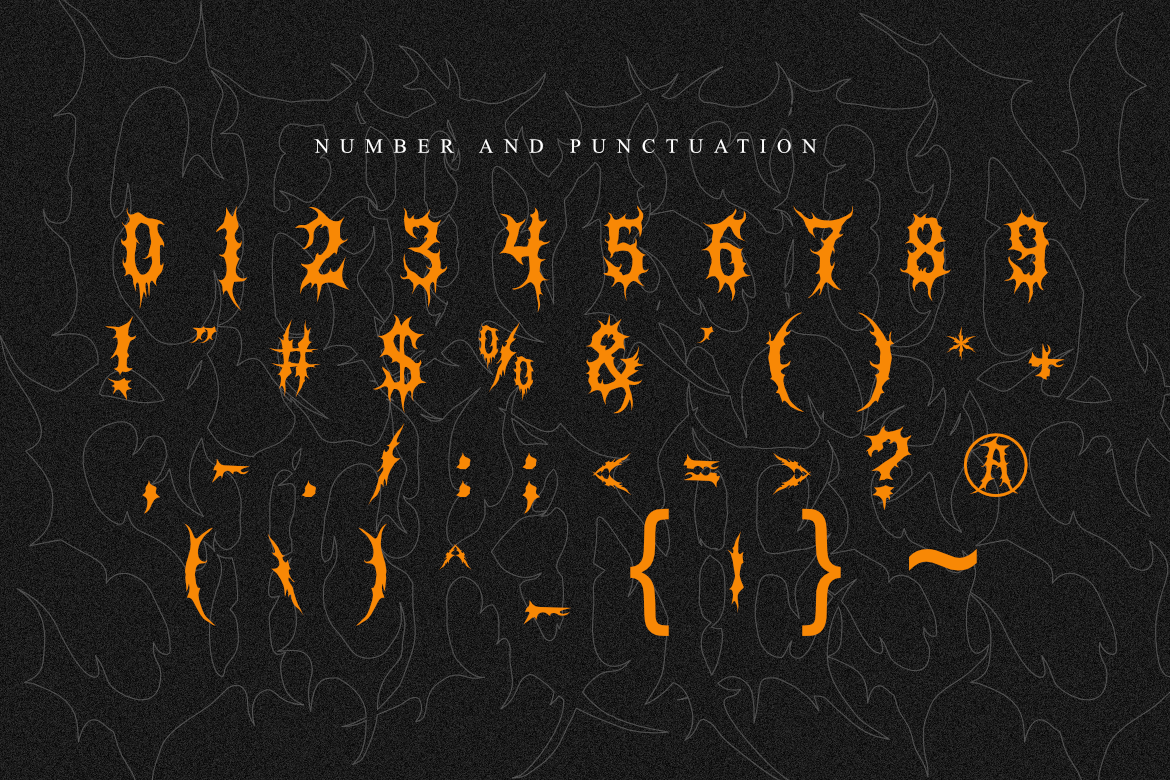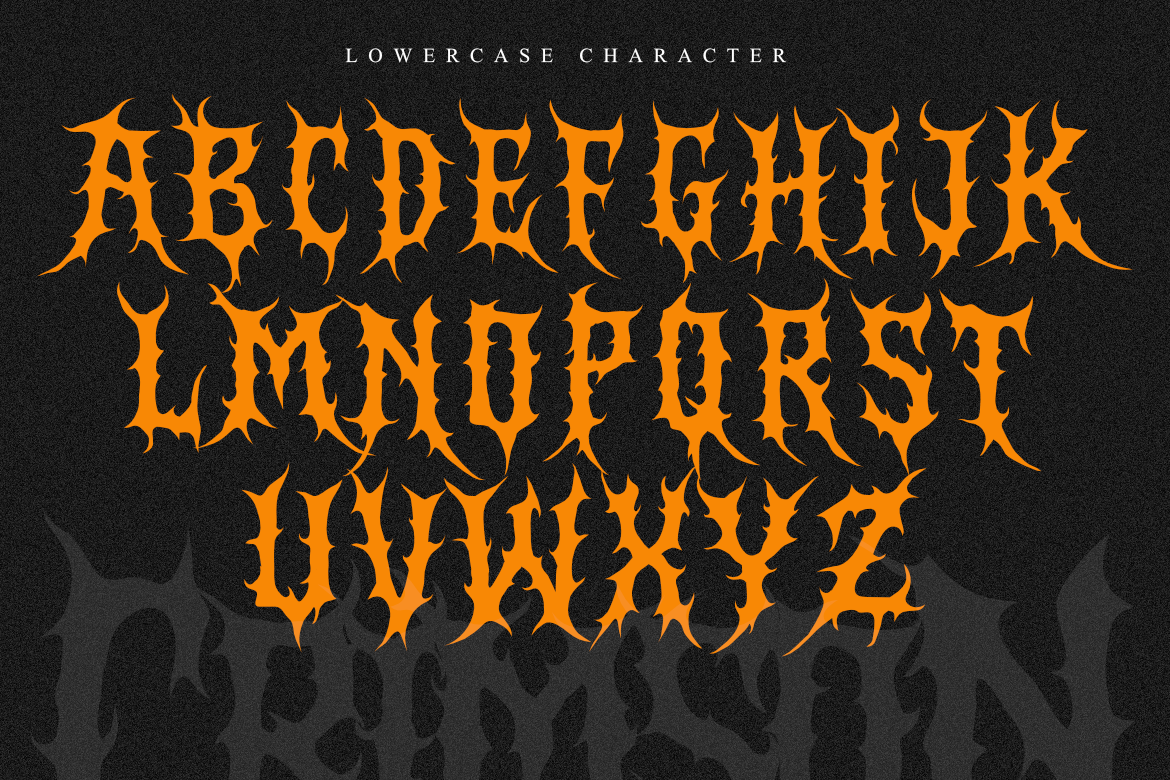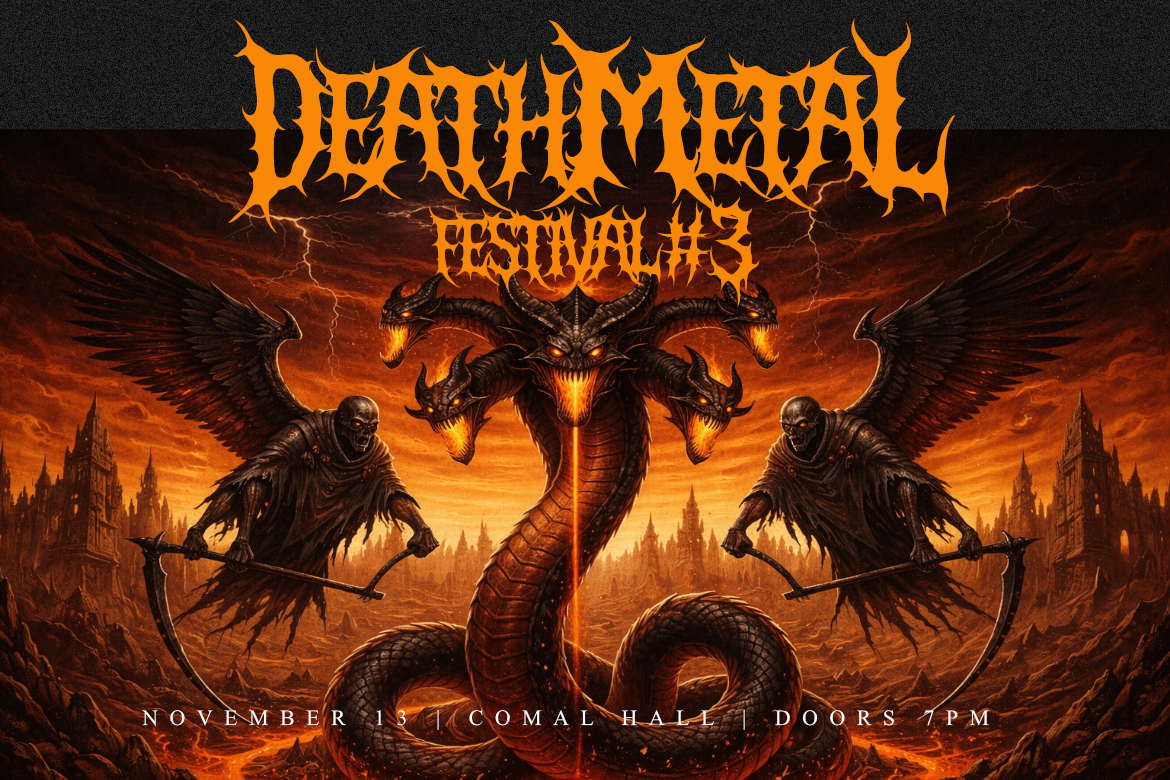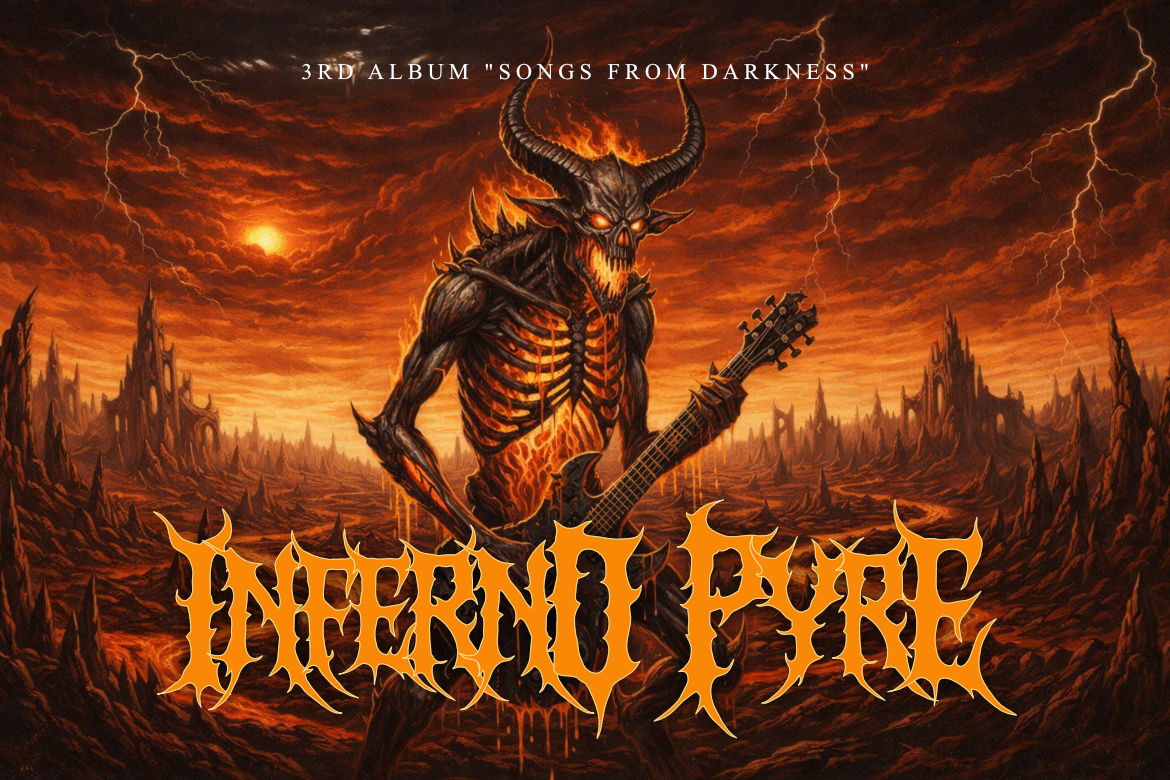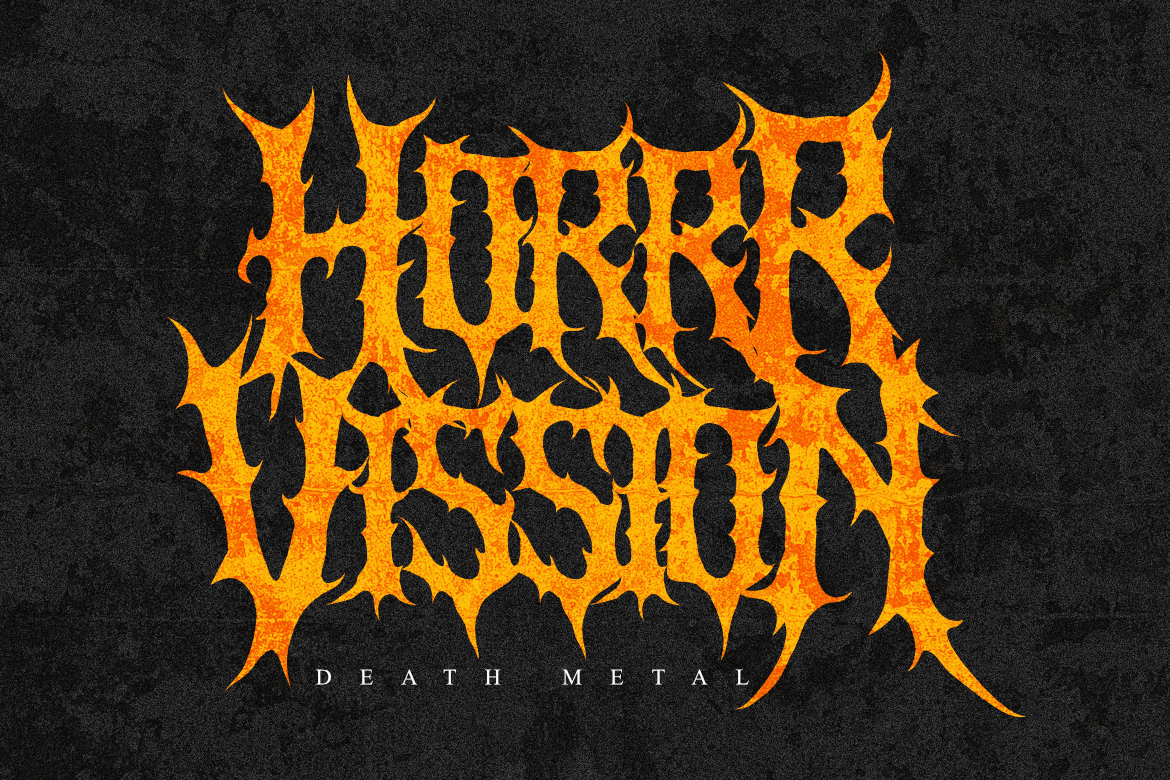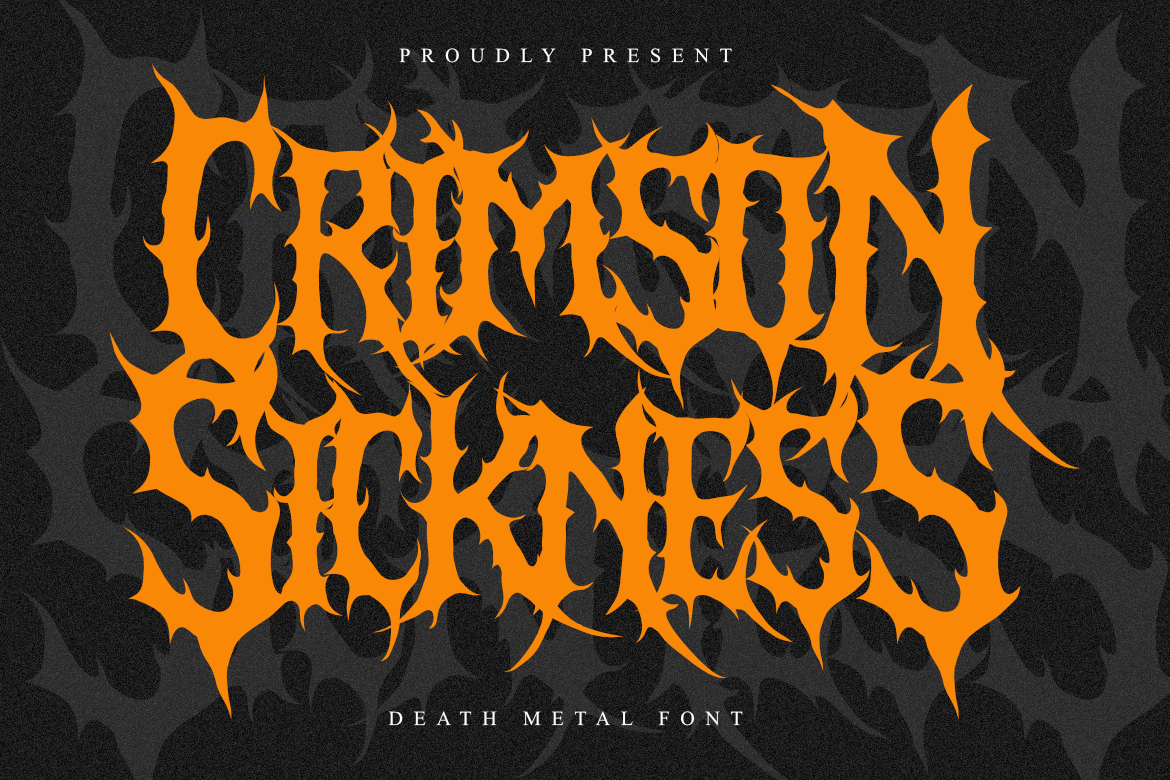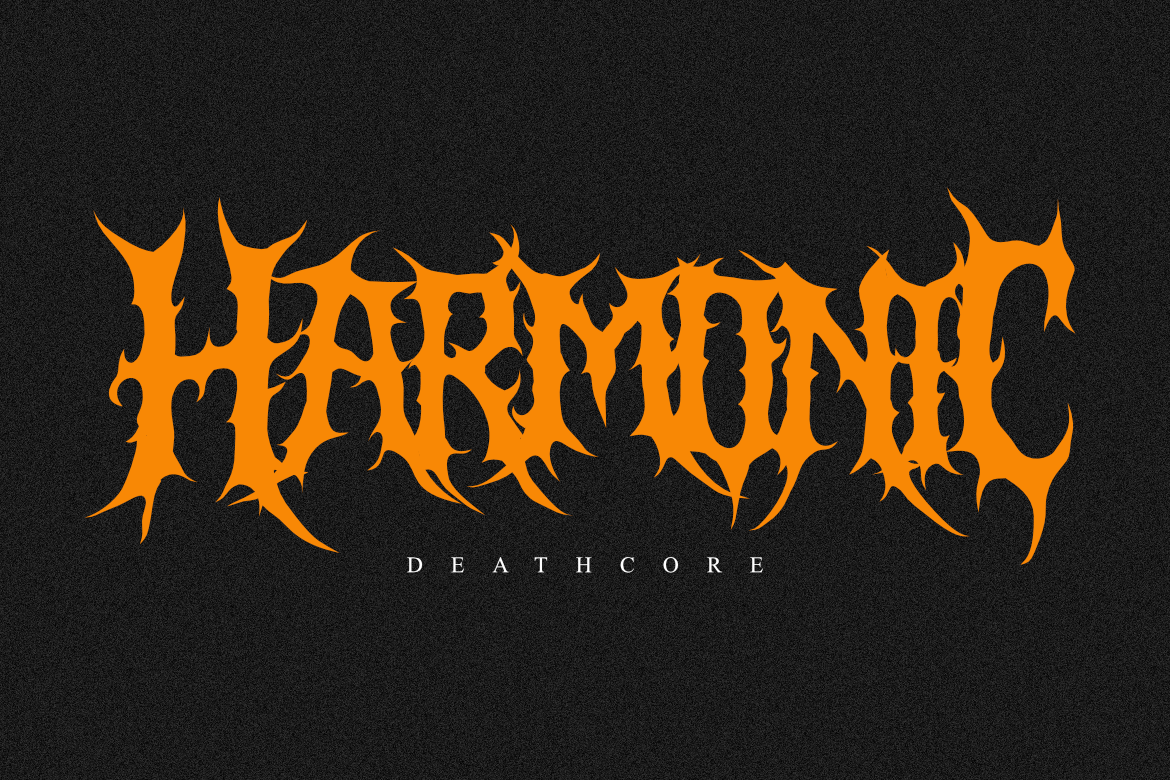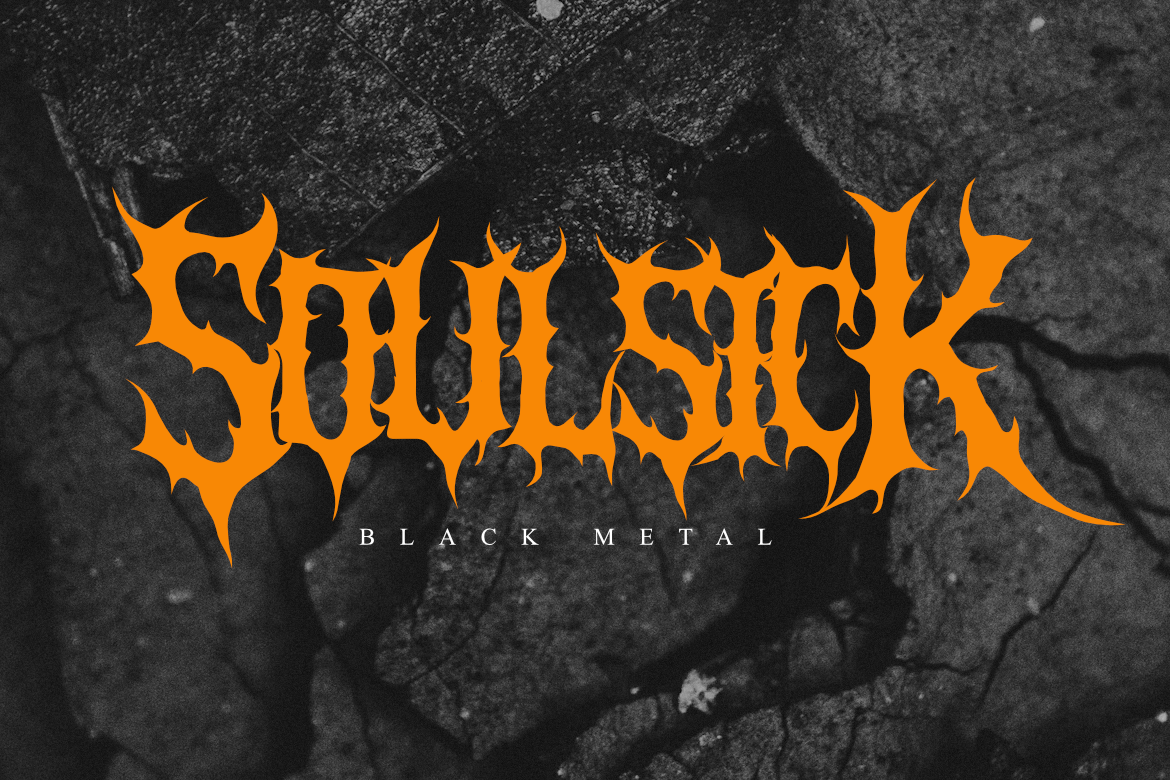
Crimson Sickness - Brutal Death Metal Font
Brutal Death Metal Font for Band Logos, Album Covers & Extreme Branding
Crimson Sickness is an aggressive display font inspired by the extreme visual language of death metal and brutalist aesthetics. With its sharp, interlocking thorn-like structures, this font is crafted to bring an intense and dark atmosphere to your designs.
It is perfectly suited for metal band logos, horror-themed branding, extreme sports graphics, and posters that require a raw, visceral energy.
- Brutal and aggressive death metal aesthetic.
- Highly detailed spiky letterforms.
- Interlocking design for a compact, powerful look.
- Optimized for headlines, logos, and merchandise.